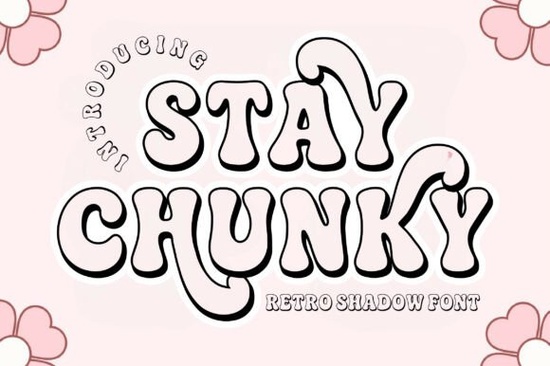
When you need typography that immediately catches the eye and feels warm at the same time, the Stay Chunky Shadow Font delivers exactly that. It pulls inspiration from 1970s poster design, using thick curves, rounded edges, and a built-in drop shadow that gives every letter a subtle sense of depth. You can use it straight out of the box without adjusting layer styles, which saves time whether you are laying out a cafe menu, printing stickers, or building a brand identity for a local shop. The rounded proportions keep the text friendly, while the shadow adds enough contrast to stand out on both light and dark backgrounds.
What kind of everyday projects benefit from this retro lettering?
Small business owners and crafters often reach for this style when they want a design that feels handmade but still looks polished. Because the characters sit close together with generous weight, short phrases and single words tend to look the strongest. You will get clean results on apparel graphics, tote bag prints, and social media quote posts. If you prefer a cleaner look without the offset, the companion version at shares the same rounded structure. You can also pair it with a bold duo display typeface for layered layouts, or contrast it with a weathered vintage option when you want more texture. For lighter sections, brings a casual script feel, while adds a distinct cultural rhythm to accent lines.
How does the built-in shadow affect print and cutting machines?
The integrated offset removes the need to manually duplicate text layers or apply layer styles in your software. This matters when you are sending files to a print-on-demand service, because flat vector exports will hold the contrast exactly as you see it on screen. Crafters using electronic cutting machines should note that the shadow portion is baked into the shape, so you cannot separate the main glyph from the offset unless you edit the paths. If your project requires single-color vinyl, export the main text separately. For full-color screen printing and heat transfers, the combined shape works without extra setup.
What spacing and sizing choices keep this typeface readable?
Bold retro letters perform best when you give them room to breathe. The thick curves naturally fill horizontal space, so increasing letter spacing slightly improves clarity at smaller sizes. If you place text over a busy background, drop a solid color block behind it to preserve contrast. Treat this style as a headline or accent element rather than body copy. When stacking lines, align them left or center and avoid extreme tracking that pulls the shadow away from the main stroke.